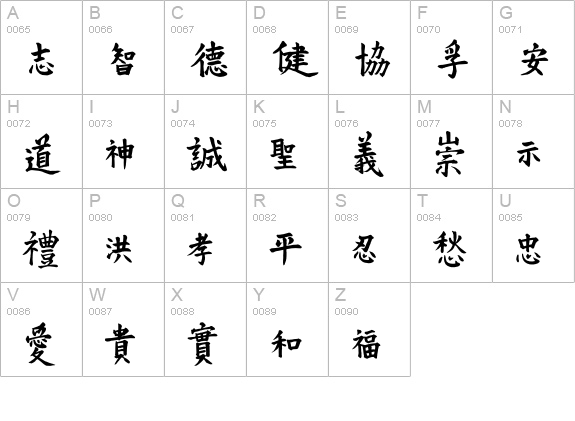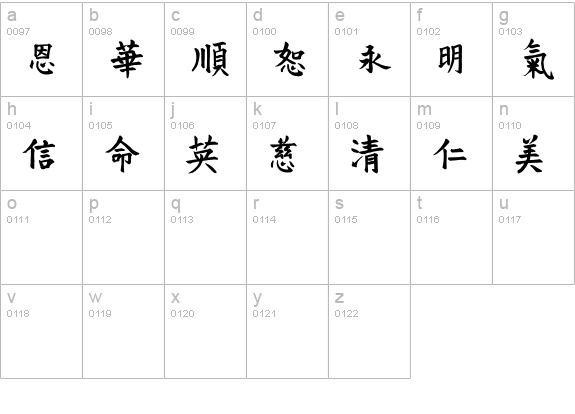
MeiOrnaments Font Details
MeiOrnaments font is a beautifully crafted typeface that exudes elegance and charm. Its intricate designs and delicate details make it perfect for adding a touch of sophistication to your projects. Whether you're creating invitations, posters, or branding materials, MeiOrnaments font will elevate your designs to the next level. What's even better is that MeiOrnaments font is completely free to download at FontsMarket.com. This means you can easily access this stunning font and use it in your creative endeavors without any cost. Don't miss out on the opportunity to enhance your designs with the exquisite beauty of MeiOrnaments font. Download it today and let your creativity shine!